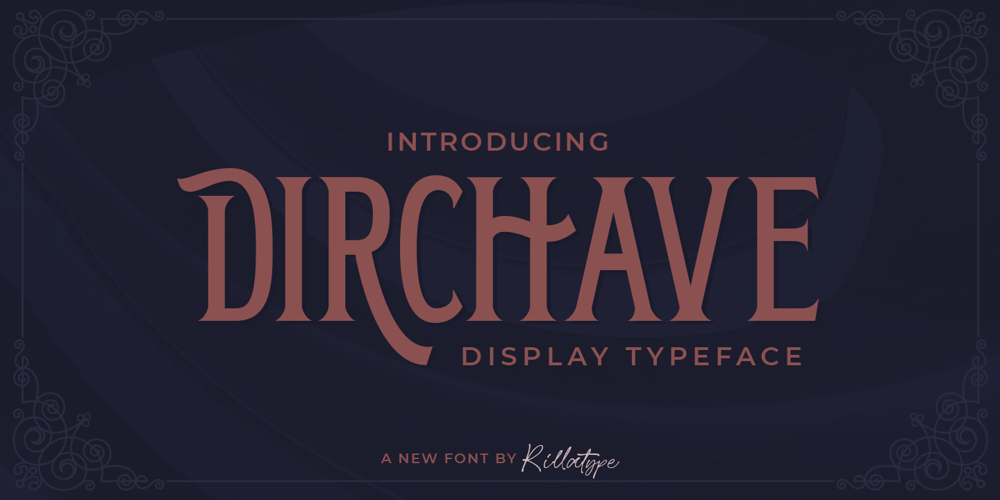
Dirchave Font Family was designed by Gustian Agung Asprilla and published by Rillatype. Dirchave contains 1 styles and family package options. Introducing, Dirchave, dirchave is a vintage inspired display font that perfect for packaging, branding, headline, quotes, etc.Features:- Uppercase Font- Number- Punctuatuon- Stylistic Alternate- PUA encoded